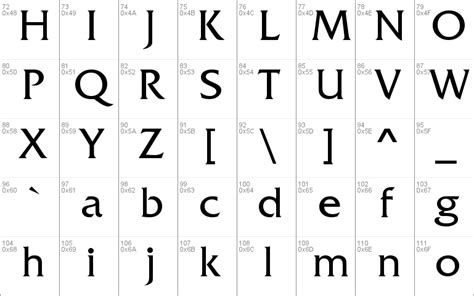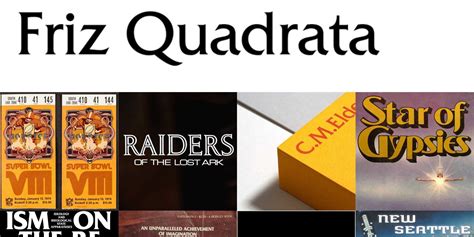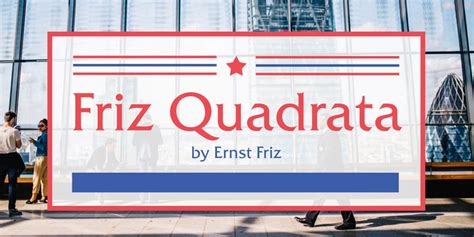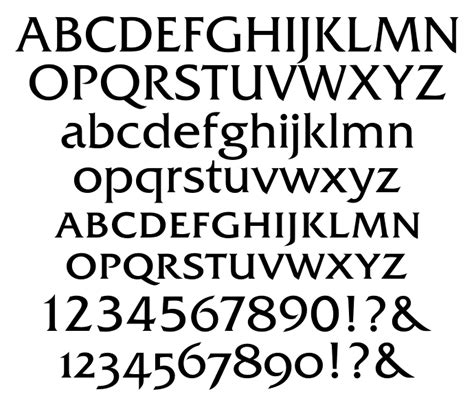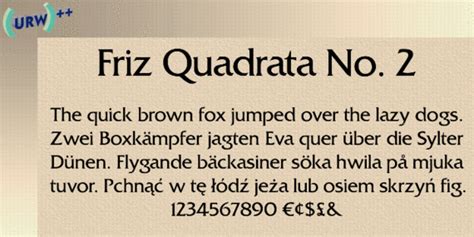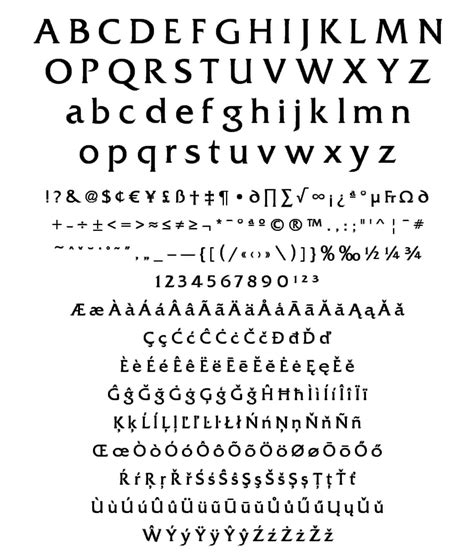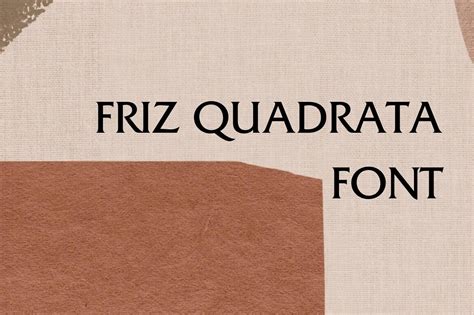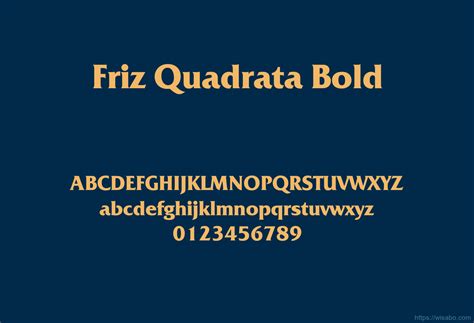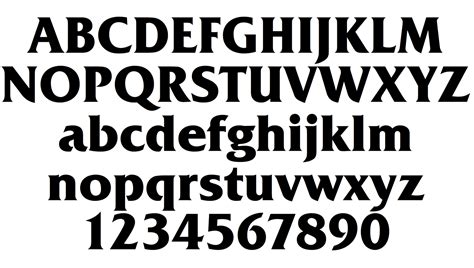
FRIZ QUADRATA FONT
Introducing friz quadrata font, a versatile and elegant typefaces that has become a staple in the world of typography. This font is known for its unique characteristics and versatility, making it a popular choice for various design projects.
One of the key features of friz quadrata is its humanistic touch. It combines the precision of a geometric font with the warmth and personality of a more traditional serif style. This blend of styles gives it a distinct and modern appearance, making it stand out from other typefaces.
The font's versatility is another notable aspect. It is highly legible and can be used for a wide range of applications, from headings and titles to body text. Its clean lines and balanced proportions make it suitable for both print and digital media, ensuring that your content is presented with clarity and style.